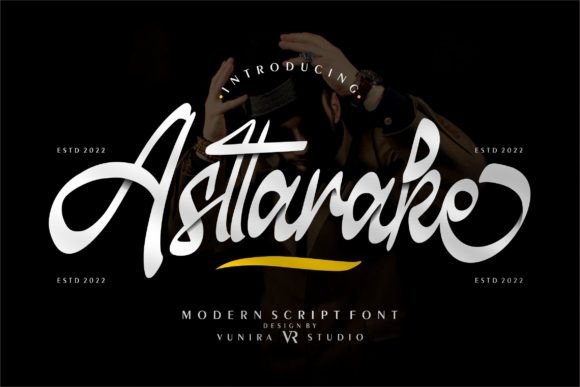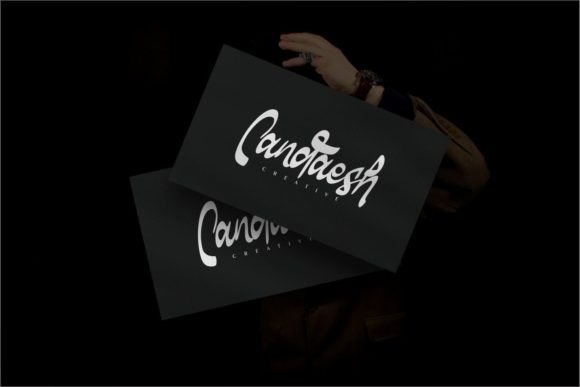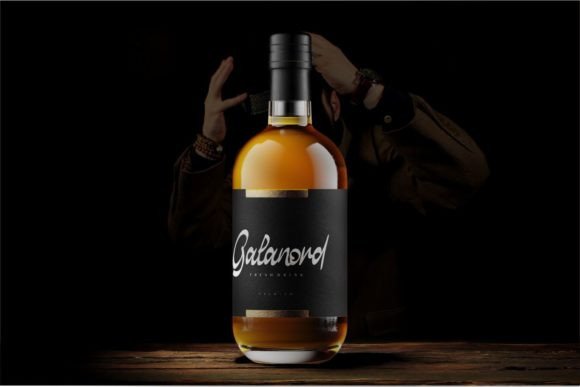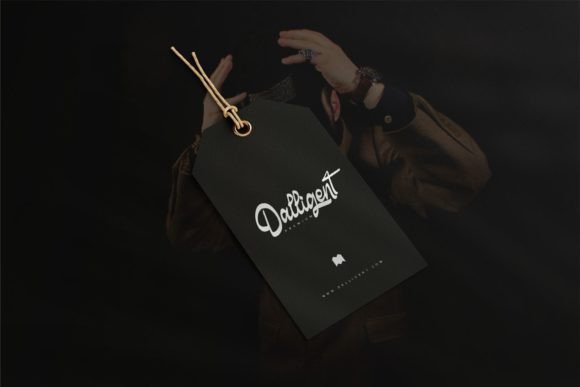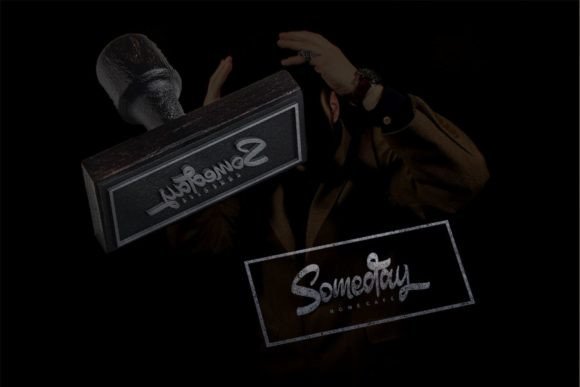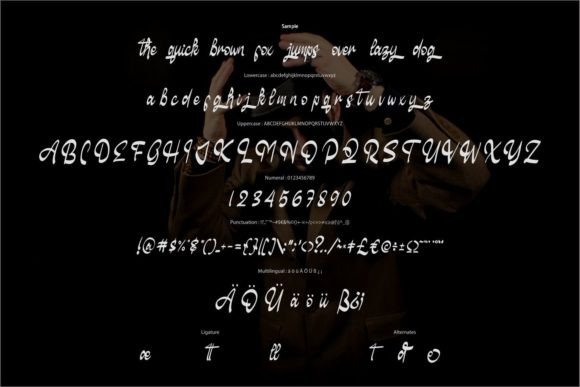
Asttarake Font
About Asttarake Font
Asttarake is a stunning modern script font with a captivating calligraphy style. This font is perfect for a wide range of design projects, including invitations, greeting cards, branding materials, business cards, quotes, posters, and more.
When it comes to invitations, Asttarake adds an elegant and sophisticated touch. The font’s intricate details and flowing strokes create a sense of beauty and refinement. Whether you’re designing wedding invitations, party invites, or event announcements, Asttarake will make your invitations look exquisite and memorable.
Greeting cards designed with Asttarake become true works of art. The font’s calligraphic style brings a sense of warmth and personalization to your messages. Whether it’s a birthday card, thank-you note, or special occasion card, Asttarake adds a touch of elegance and charm, making your greetings even more heartfelt.
Branding materials and business cards benefit from Asttarake’s modern and stylish appearance. The font’s unique letterforms and graceful curves create a distinctive and memorable visual identity. Whether you’re designing a logo, business card, or any other branding materials, Asttarake helps convey a sense of professionalism and creativity.
Quotes and posters come alive with Asttarake’s calligraphy style. The font’s intricate details and artistic flair make your quotes and typography stand out. It adds a touch of sophistication and visual interest, making your designs captivating and impactful.
In summary, Asttarake is a modern script font with a calligraphy style that enhances a variety of design projects. From invitations and greeting cards to branding materials, business cards, quotes, and posters, Asttarake adds beauty, elegance, and a touch of uniqueness. Its captivating letterforms and flowing style make it an excellent choice for creating visually stunning and memorable designs.